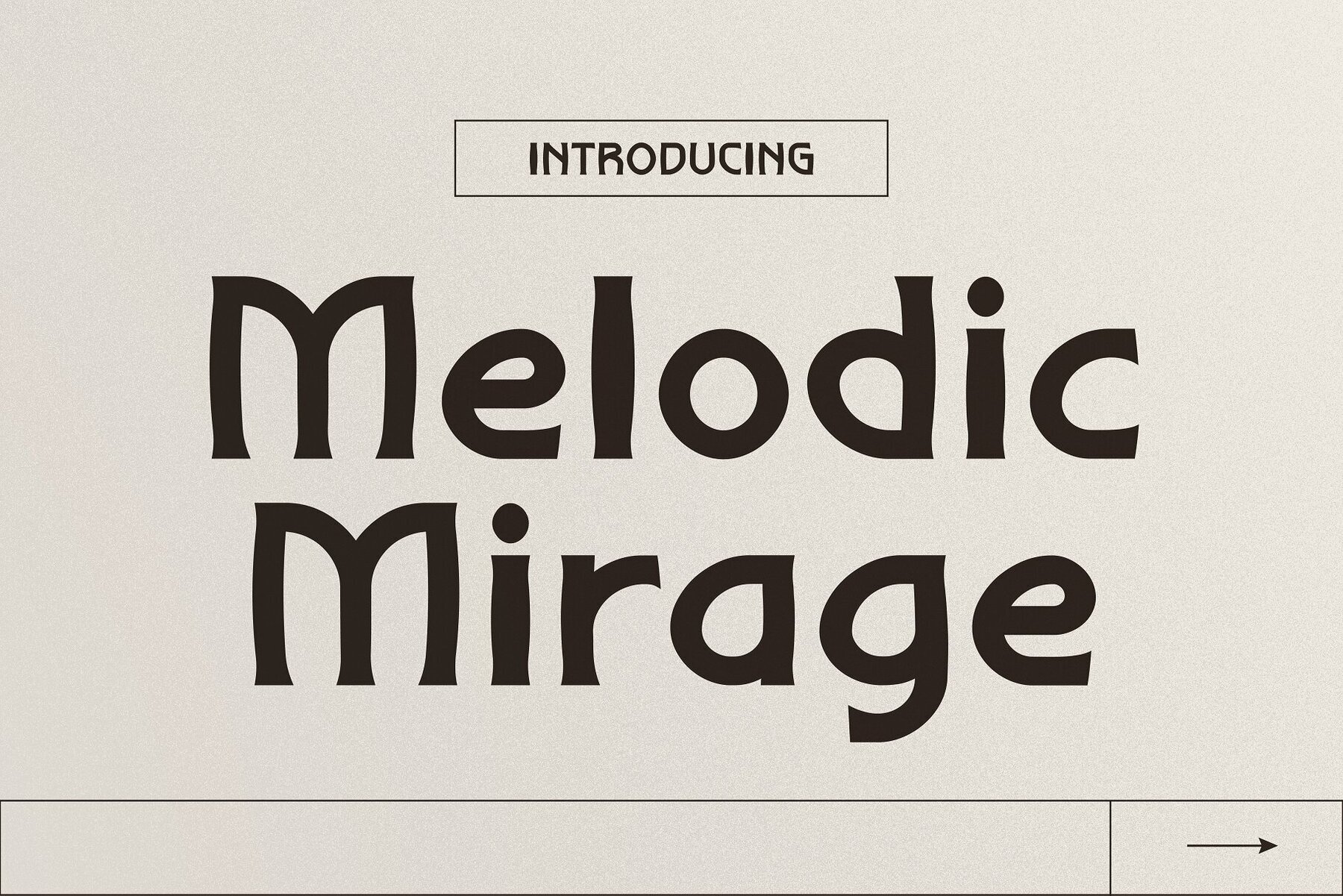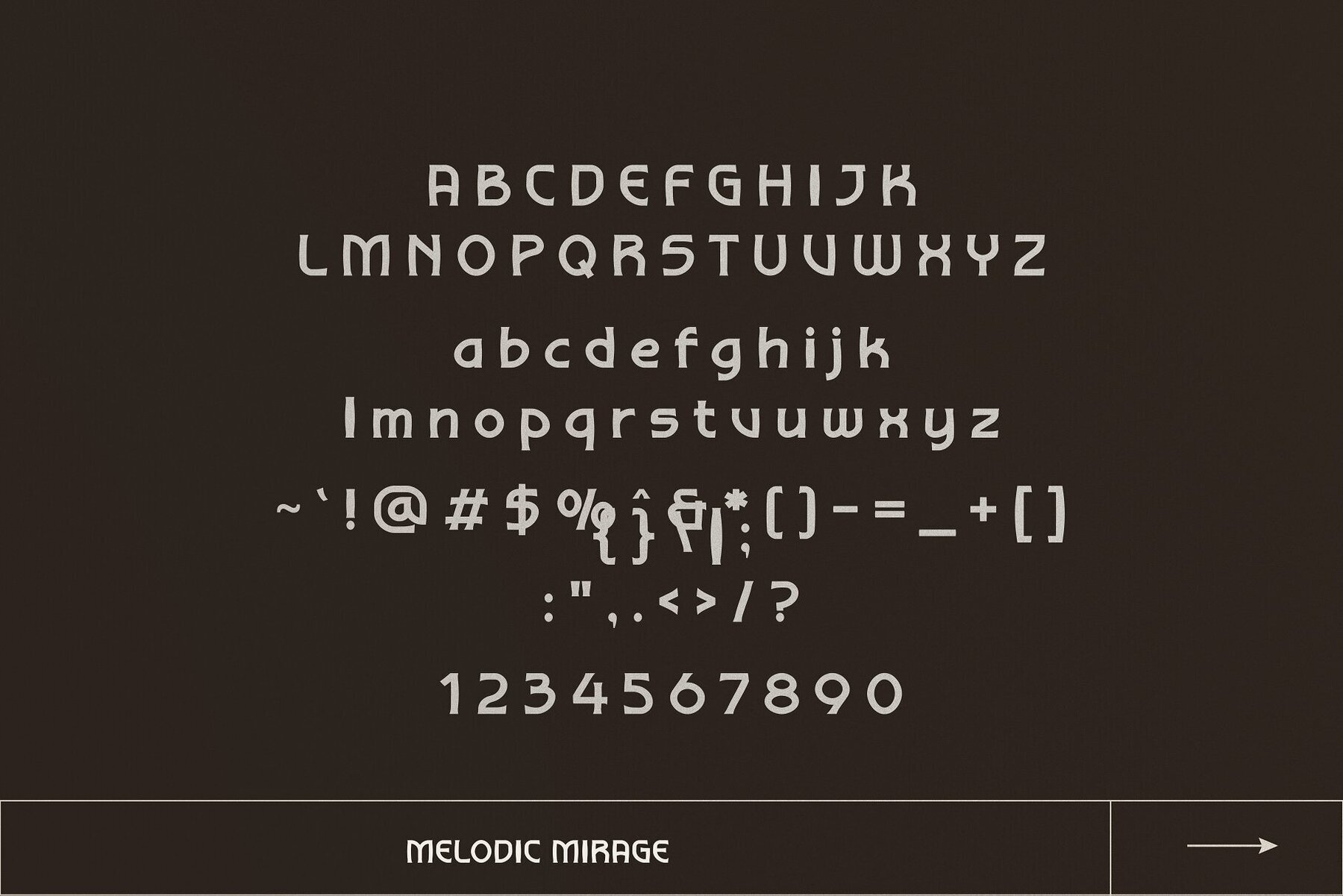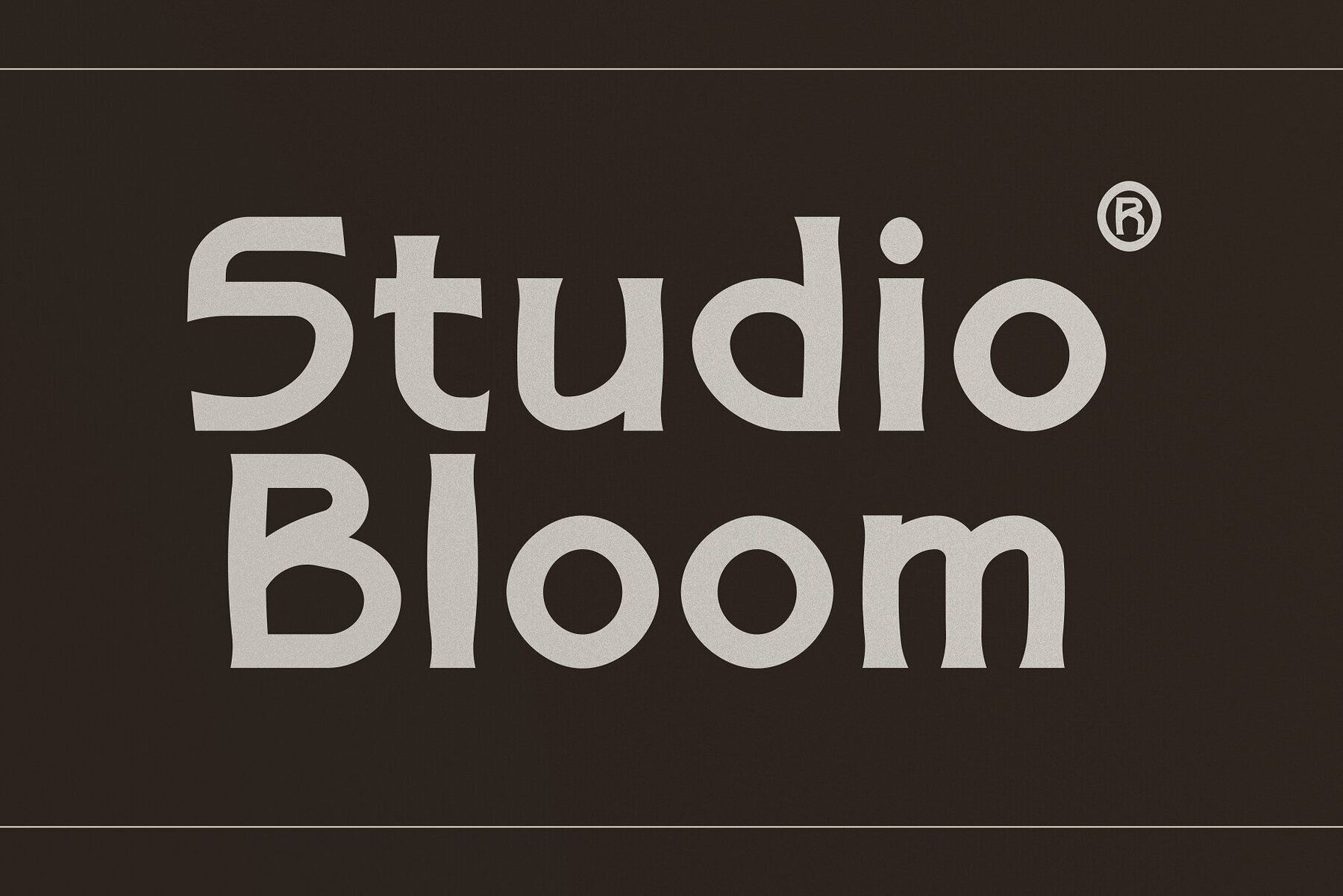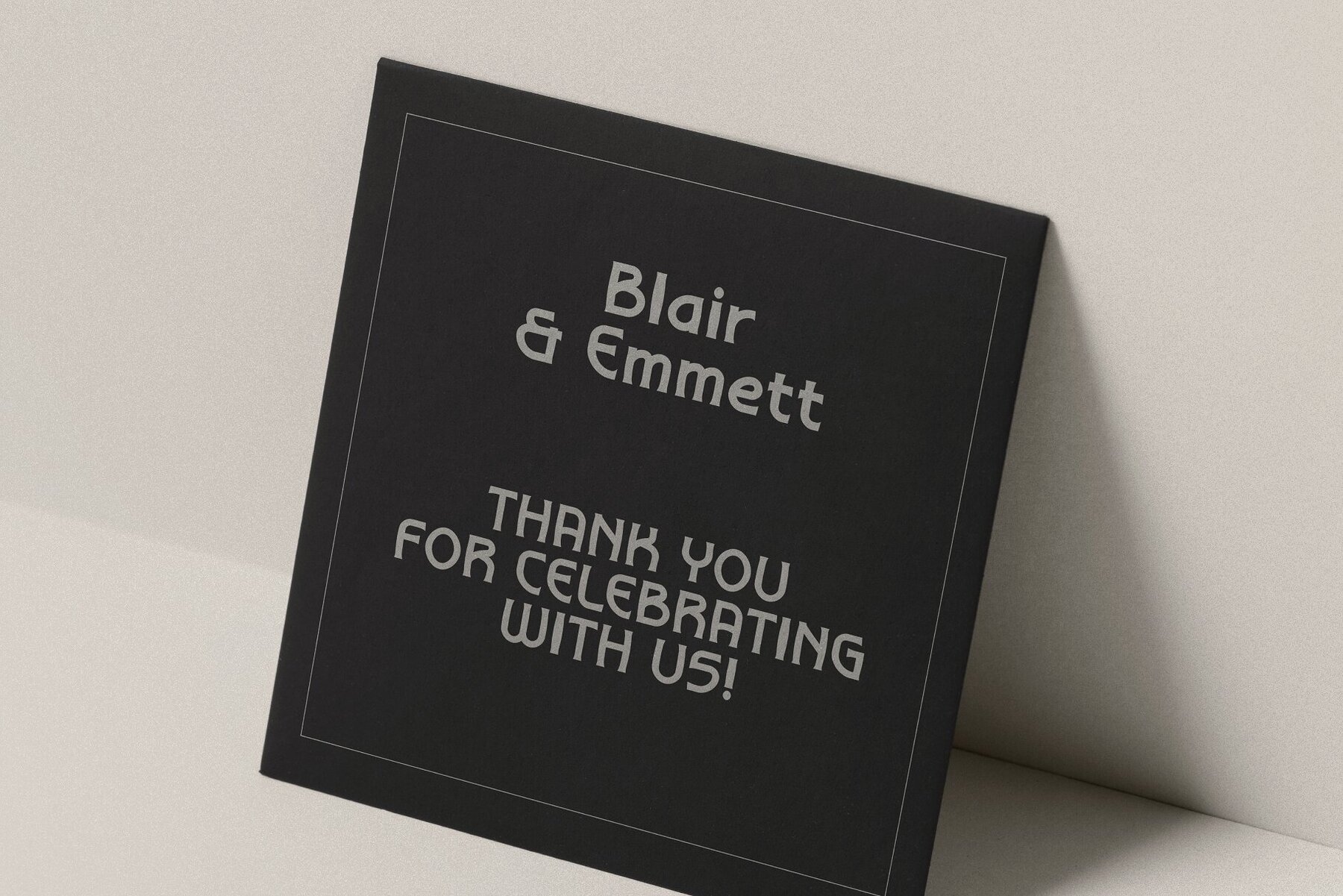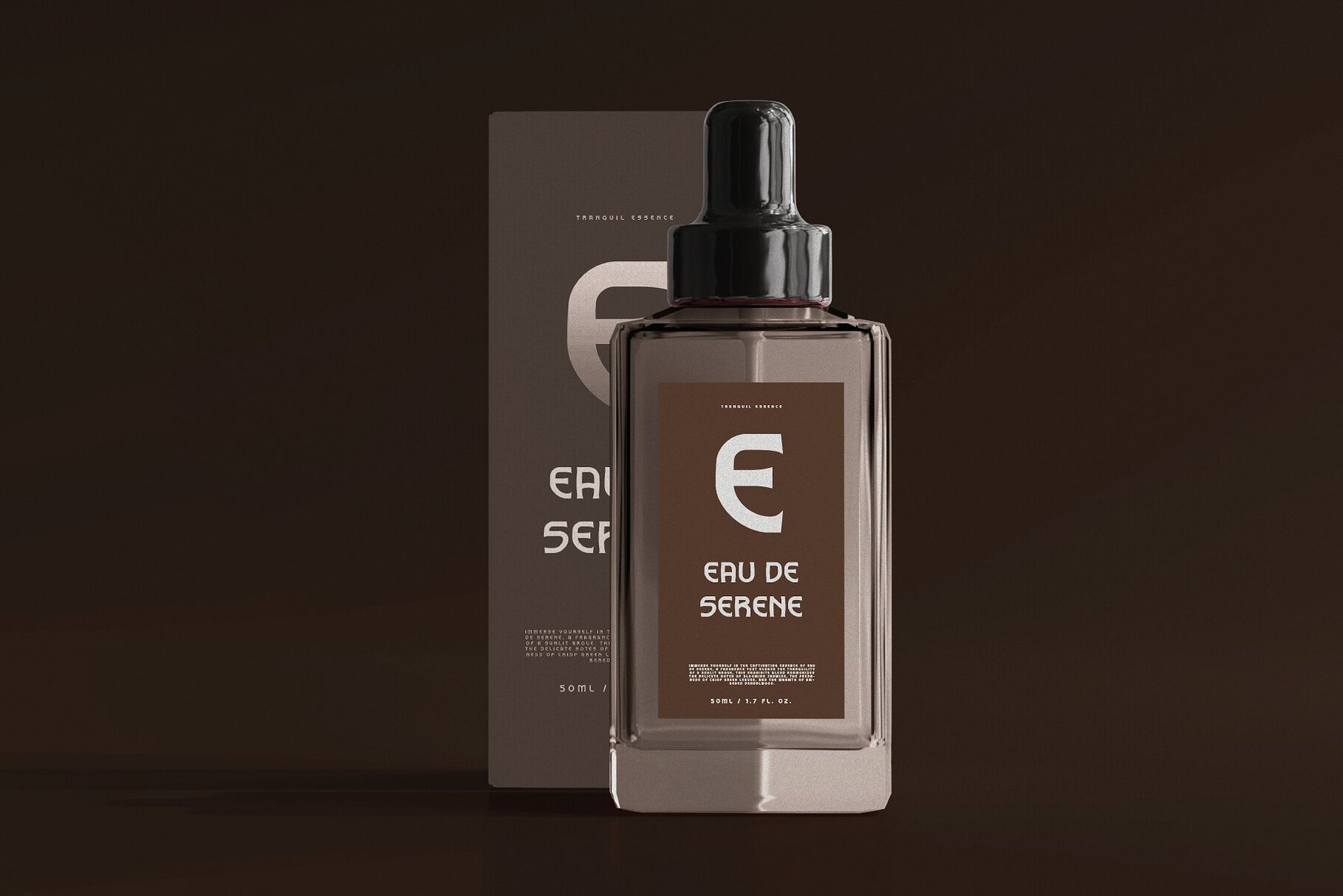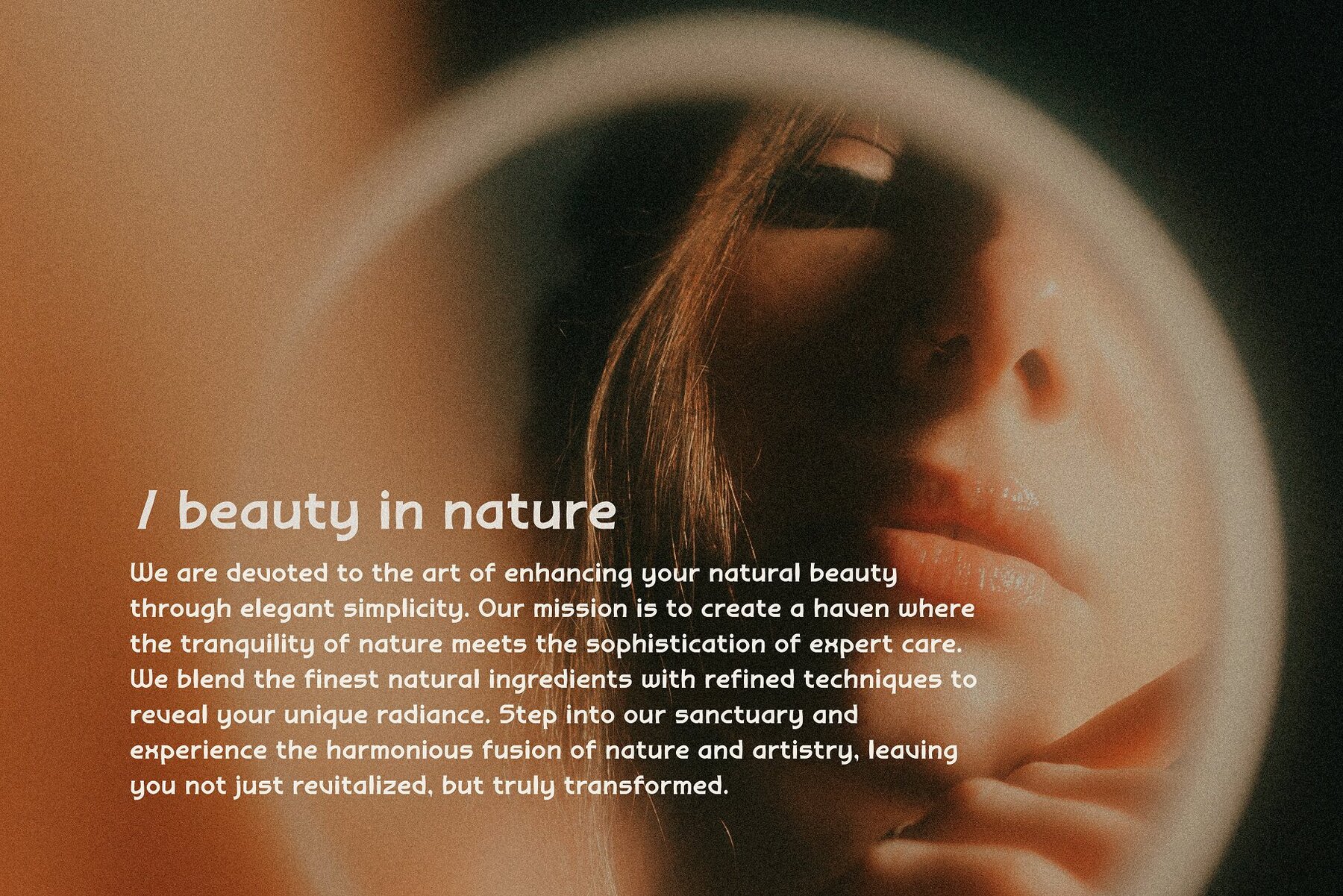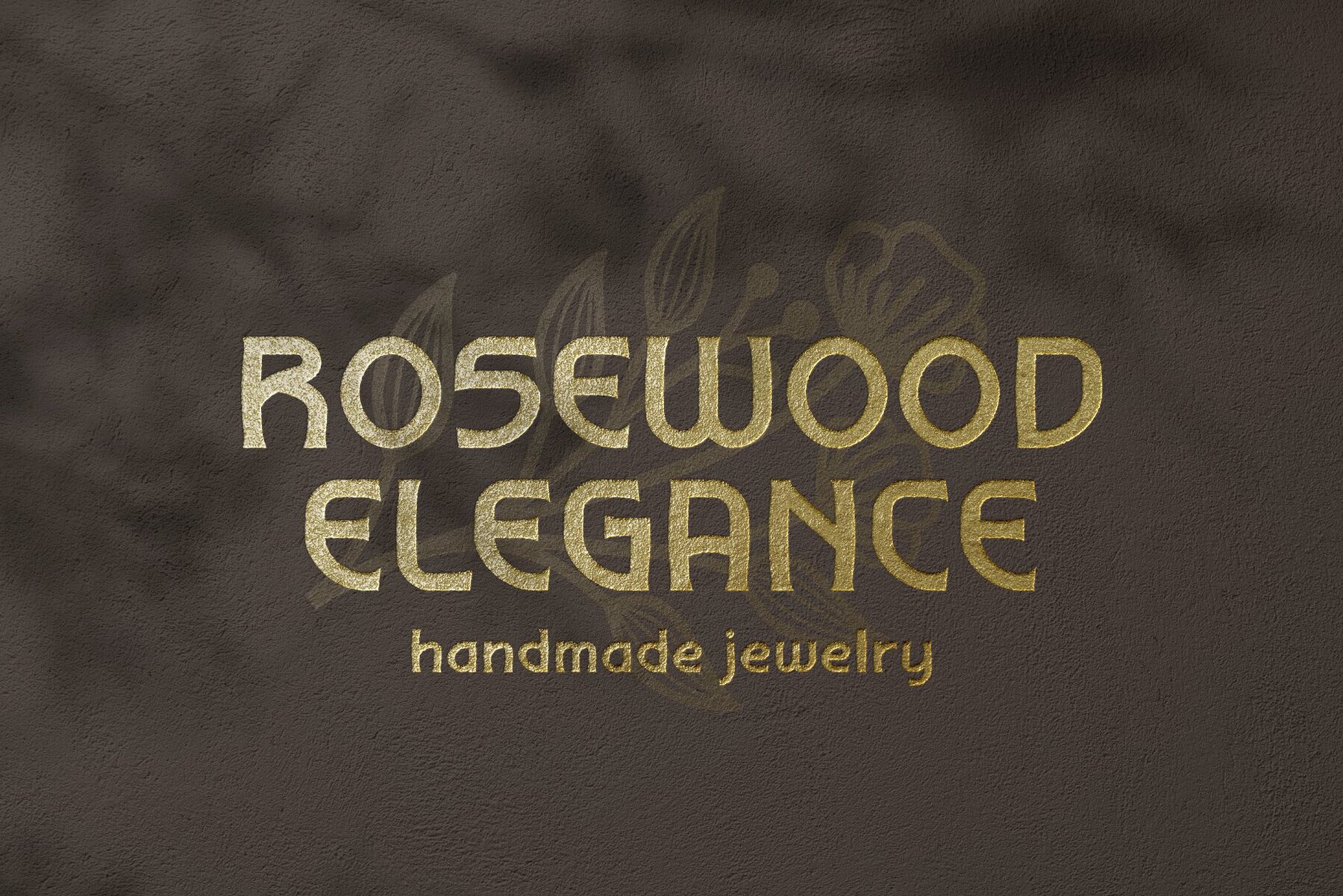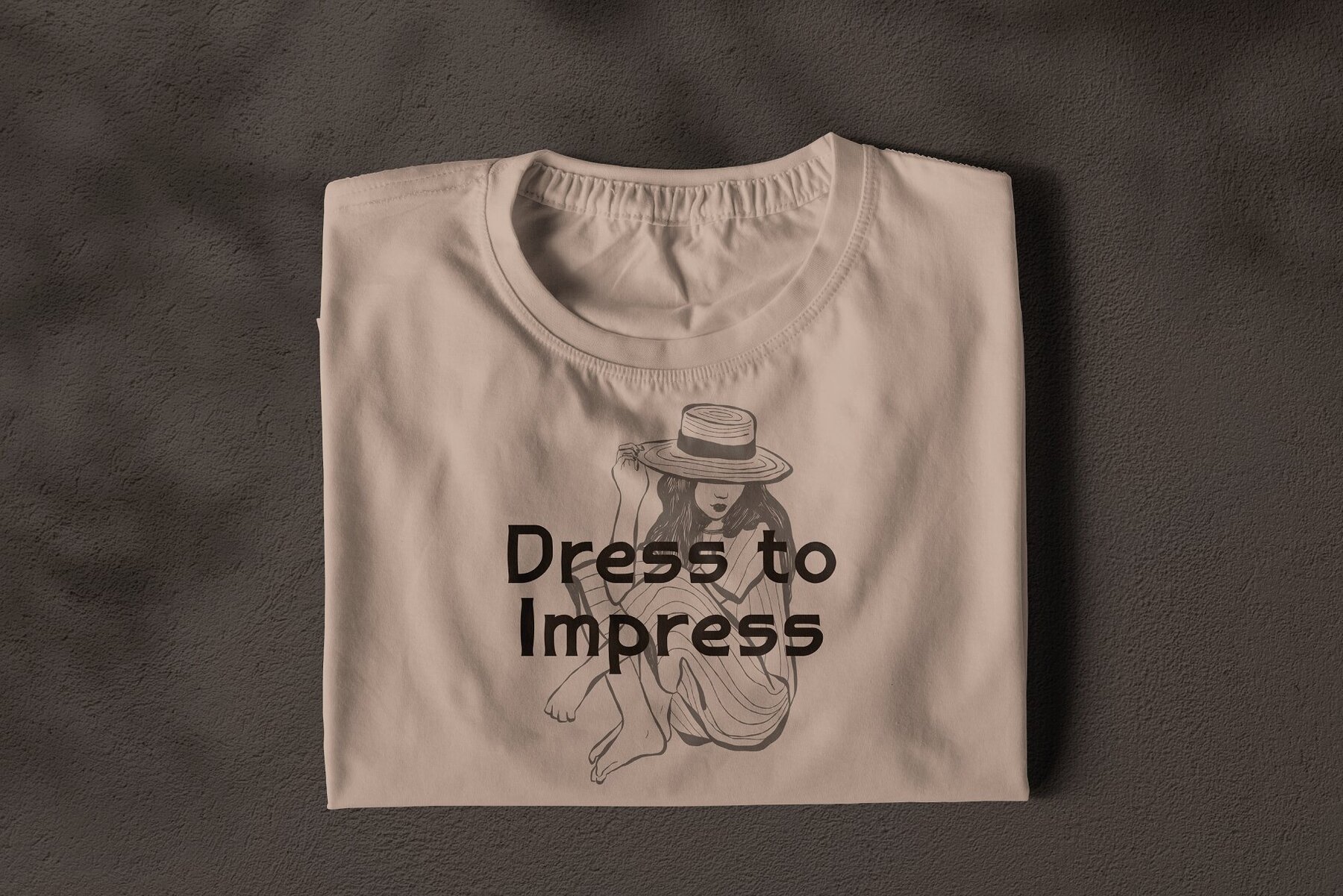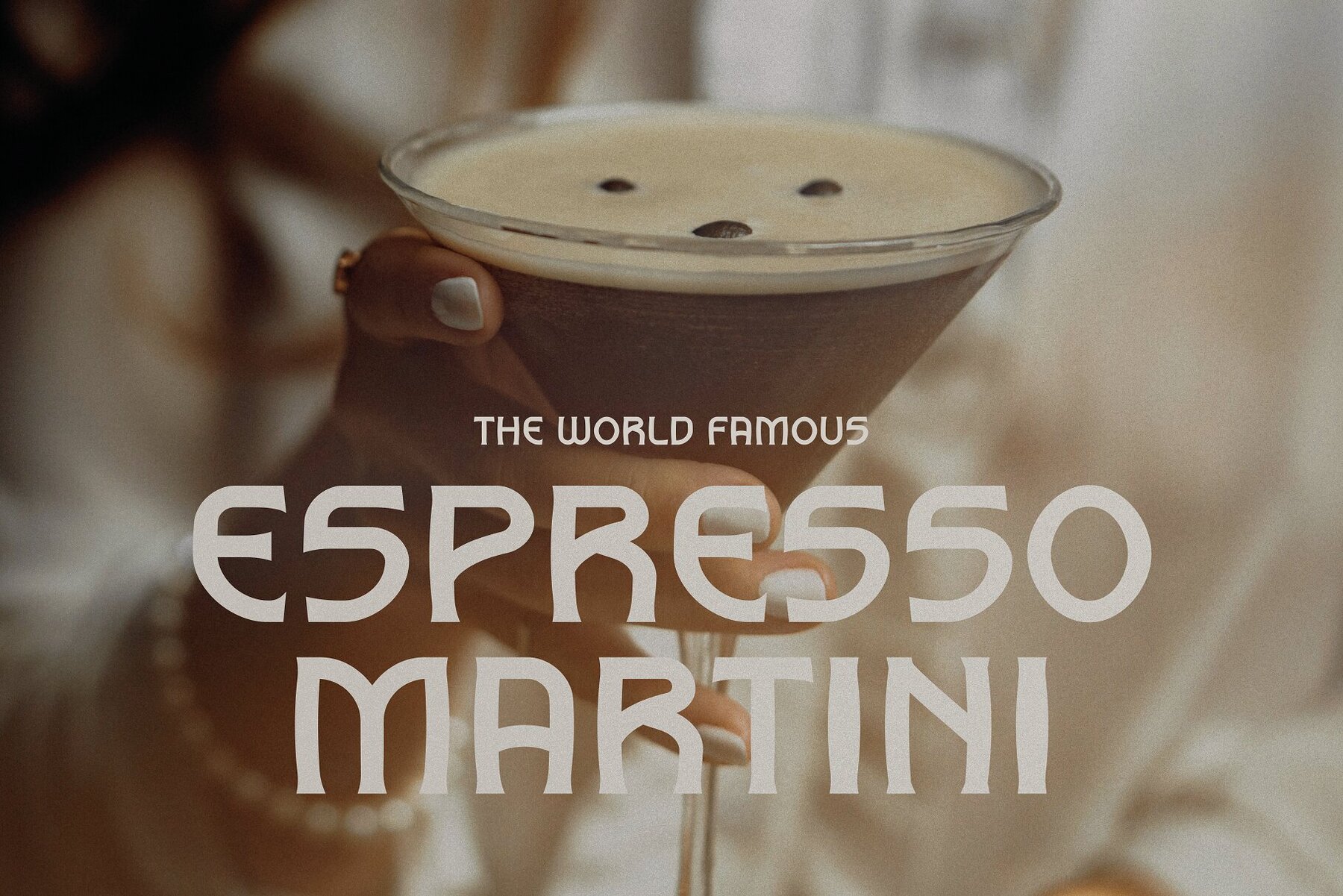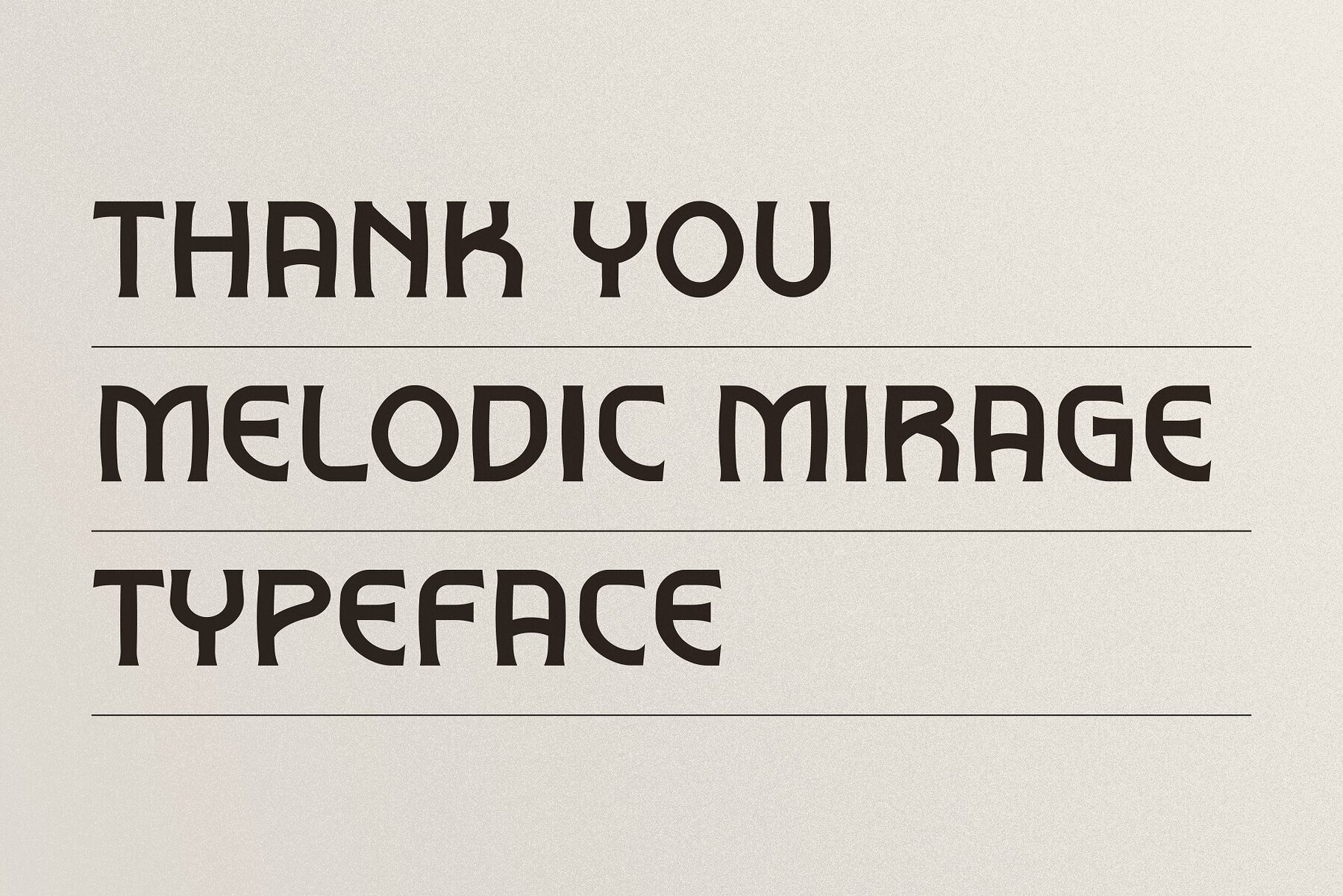
Melodic Mirage Font
Melodic Mirage
Melodic Mirage brings a breathtaking revival of vintage typography, transporting you to an era of elegance and charm. This enchanting typeface effortlessly captures the essence of classic design, making it an ideal choice for signage, branding, and a myriad of creative projects. Its rich blend of nostalgia and timeless beauty ensures versatility and value in any designer's toolkit.
Perfect for creating striking signage, crafting elegant brand identities, or designing memorable editorial pieces, Melodic Mirage provides the perfect balance of classic charm and modern versatility. Rediscover the magic of vintage typography with a typeface that transforms every project into a timeless masterpiece. Embrace nostalgia and let your creativity soar with Melodic Mirage.